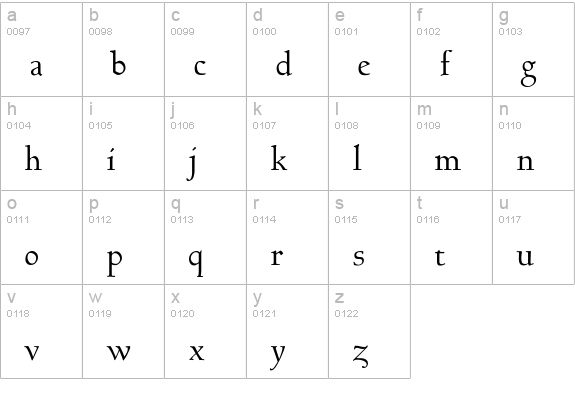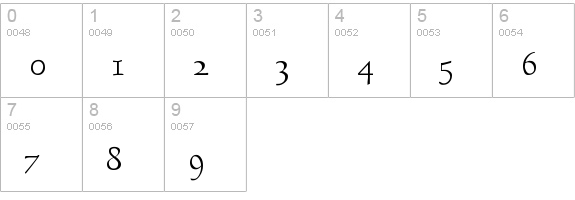
GoundyHundred Font Details
Introducing GoundyHundred font - a modern and stylish typeface that exudes elegance and sophistication. With its sleek lines and contemporary aesthetic, this font is perfect for a wide range of design projects, from branding to advertising to social media graphics. What sets GoundyHundred font apart is its versatility - it can be used for both headings and body text, making it a truly versatile choice for any designer. The clean and crisp letterforms ensure readability while adding a touch of flair to your designs. The best part? GoundyHundred font is completely free to download at FontsMarket.com. Yes, you read that right - you can access this stunning font at no cost, making it an invaluable addition to your font collection. Don't miss out on the opportunity to elevate your designs with GoundyHundred font today!